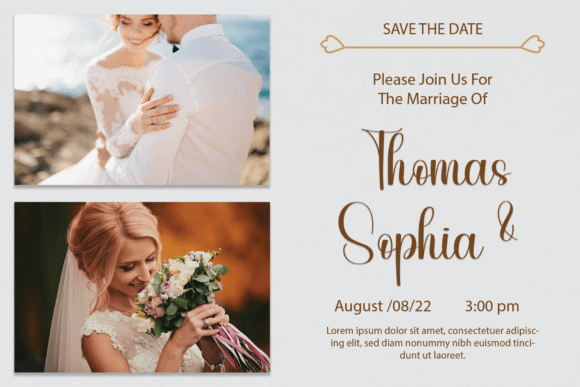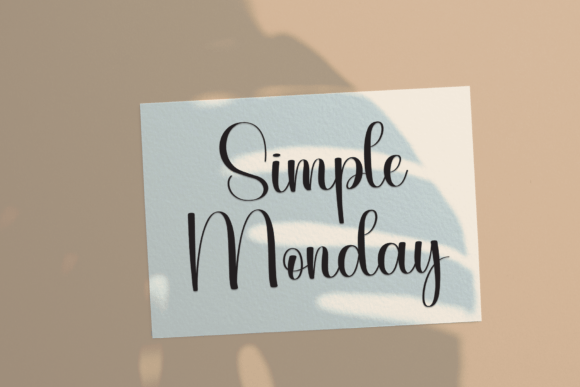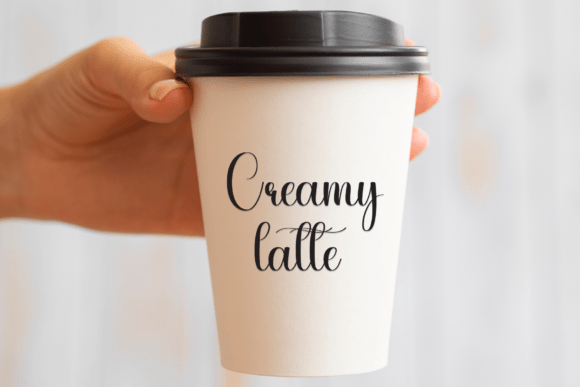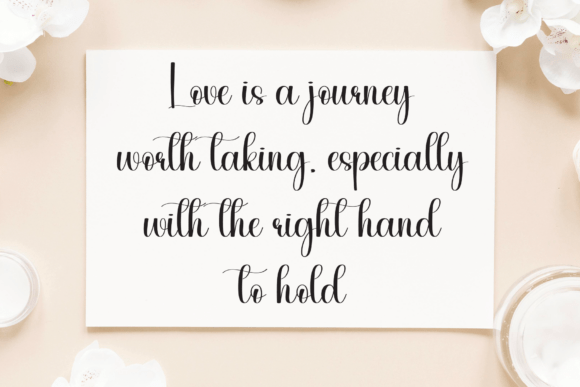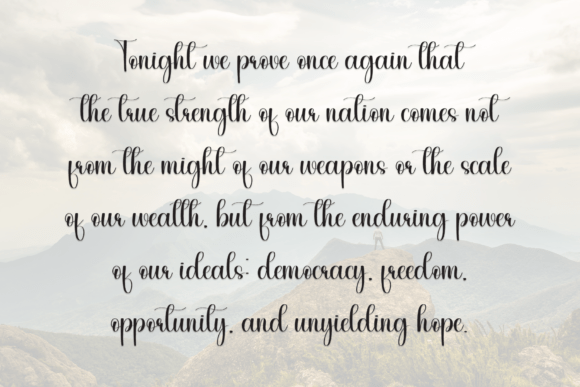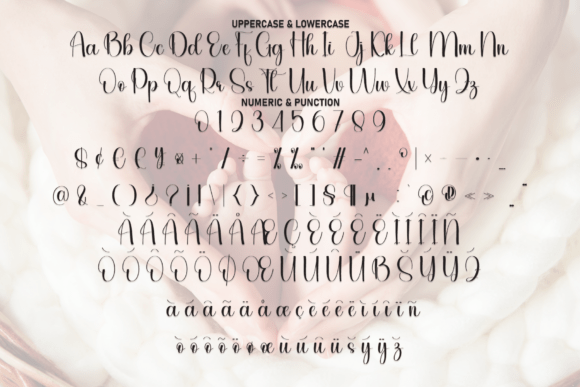
Babylove Font: Adding a Touch of Whimsy to Your Creative Projects
Are you looking for a unique and enchanting handwritten font to elevate your creative projects? Look no further than the Babylove Font. This one-of-a-kind font is designed to infuse your designs with a sense of magic and joy, making it perfect for a variety of applications. In this article, we’ll dive into the world of Babylove Font and explore its features, uses, and benefits.
The Charm of Babylove Font
Babylove Font is a meticulously designed handwritten font that exudes a cozy and irresistible personality. Its enchanting essence is sure to captivate your audience and leave a lasting impression. With its whimsical and playful feel, this font is ideal for adding a touch of warmth and personality to your designs.
Babylove Font is an extraordinary pick for a wide range of creative projects, including:
- Wedding Invites: Add a touch of romance and whimsy to your wedding invitations with Babylove Font. Its elegant and playful feel makes it perfect for couples looking for a unique and personalized design.
- Greeting Cards: Create sentimental and heartfelt greeting cards with Babylove Font. Its cozy allure and irresistible personality make it ideal for expressing your feelings and emotions.
- Assorted Designs: From branding and packaging to social media graphics and blog posts, Babylove Font can add a dash of happiness and personality to any design project.
Benefits of Using Babylove Font
So, why choose Babylove Font for your creative projects? Here are just a few benefits:
- Unique and Exclusive: Babylove Font is a one-of-a-kind font that will set your designs apart from the rest.
- Easy to Read: Despite its whimsical feel, Babylove Font is easy to read and understand, making it perfect for body text and headlines.
- Customizable: With Babylove Font, you can add your own personal touch to your designs and make them truly unique.
- Time-Saving: With a vast range of uses, Babylove Font can save you time and effort in the long run, as you can use it across multiple projects and applications.
How to Use Babylove Font
Using Babylove Font is easy and straightforward. Here are a few tips to get you started:
- Pair it with Other Fonts: Experiment with pairing Babylove Font with other fonts to create a unique and visually appealing design.
- Play with Colors: Babylove Font looks great in a variety of colors, so don’t be afraid to experiment and find the perfect hue for your design.
- Add Graphics and Illustrations: Take your design to the next level by adding graphics and illustrations that complement Babylove Font.
In conclusion, Babylove Font is a unique and enchanting handwritten font that can add a touch of magic and joy to your creative projects. With its cozy allure and irresistible personality, it’s perfect for a wide range of applications, from wedding invites and greeting cards to branding and social media graphics. So why not give Babylove Font a try and see how it can elevate your designs?
Get Ready to Fall in Love with Babylove Font
Whether you’re a designer, crafter, or DIY enthusiast, Babylove Font is sure to capture your heart. So, what are you waiting for? Immerse yourself in the enchanting essence of Babylove Font and discover a world of creative possibilities.